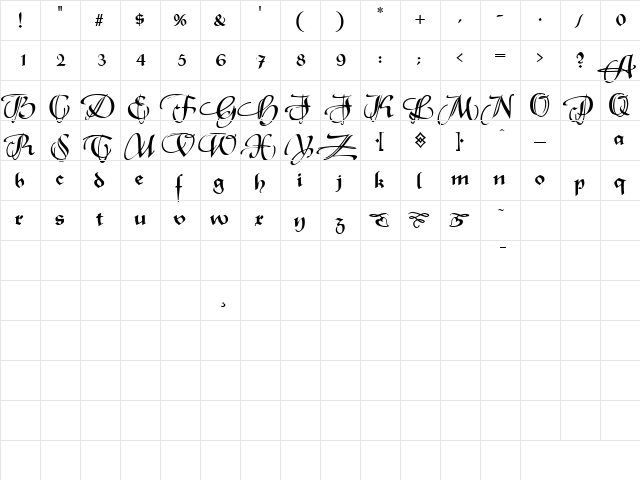
Rhapsodie Swash Caps Normal
Design Context for Rhapsodie Swash Caps Typeface
Rhapsodie Swash Caps brings a calligraphic fluidity to the page — its connecting strokes and expressive curves give it an unmistakably human quality.
Font Pairing: Combine Rhapsodie Swash Caps with a simple geometric sans for maximum contrast — the tension between flowing curves and clean structure is a classic typographic pairing.
Pro Tip: Pair Rhapsodie Swash Caps with a clean sans-serif for supporting text. The contrast between fluid script and geometric structure creates an elegant typographic hierarchy.